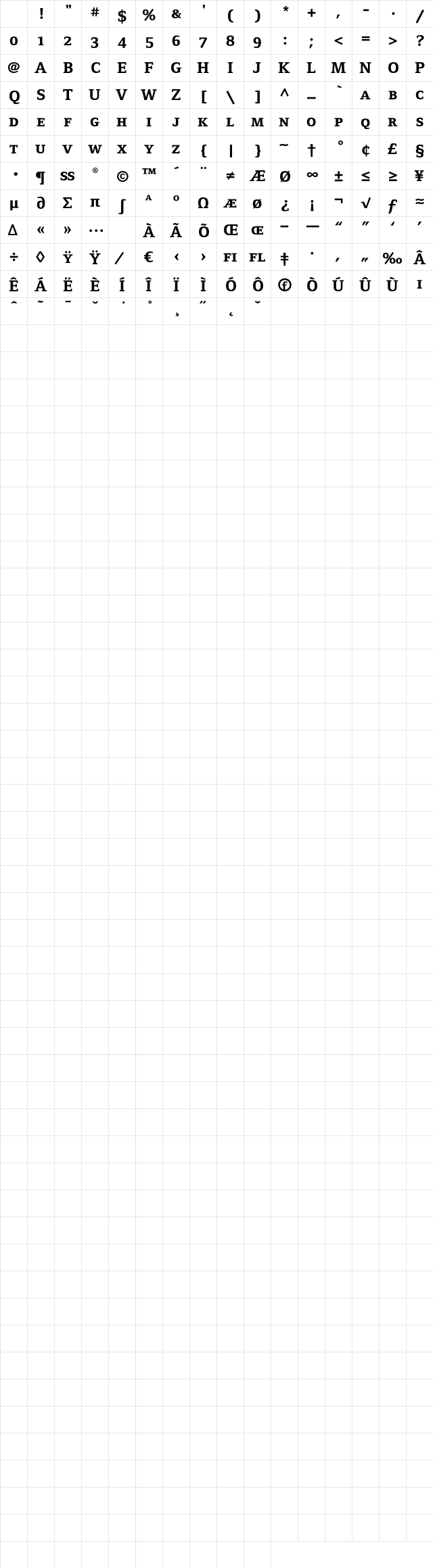
Complete FoundryFormSerif ExtraBoldSC glyph index. Displaying only characters natively supported by FoundryFormSerif ExtraBoldSC font.
FoundryFormSerif carries the refined structure of traditional serif typography, with bracketed terminals and considered proportions that communicate credibility and craft. Its bold stroke weight gives it real presence on the page.
Pro Tip: Use FoundryFormSerif for editorial body copy and considered headline work. Pair with a neutral sans for UI elements or captions to create a classic hierarchy.